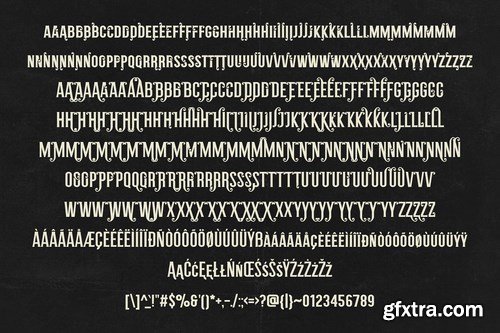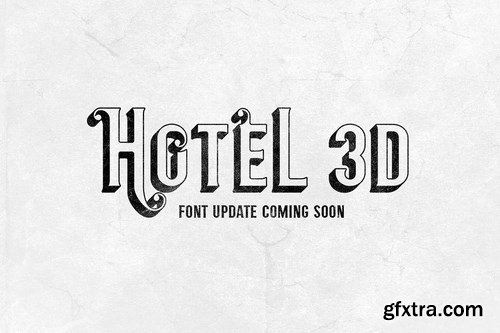
Hotel Imperial is a stylish and very versatile display decorative serif font. You can create simple typography or amazing titles and text for your projects using the alternative letters. And there are many letters to choose from!